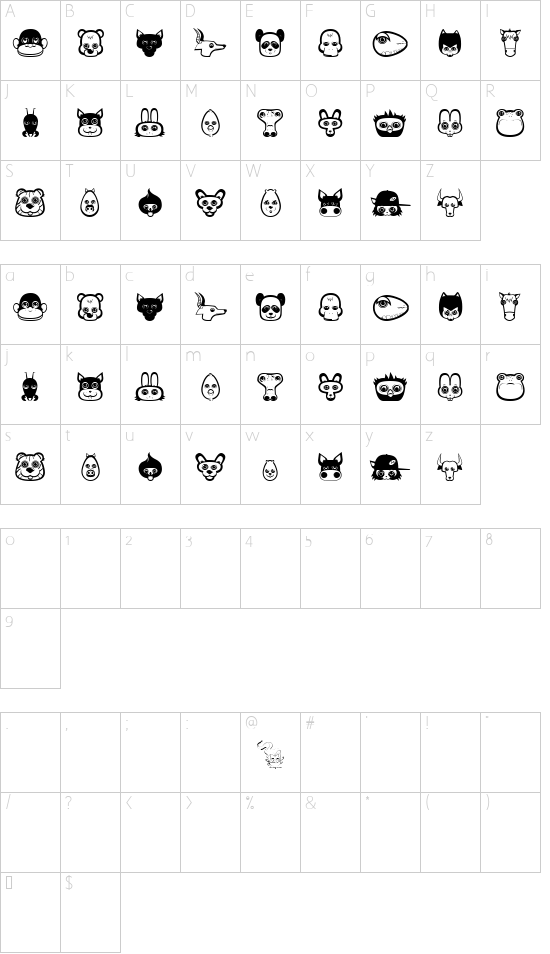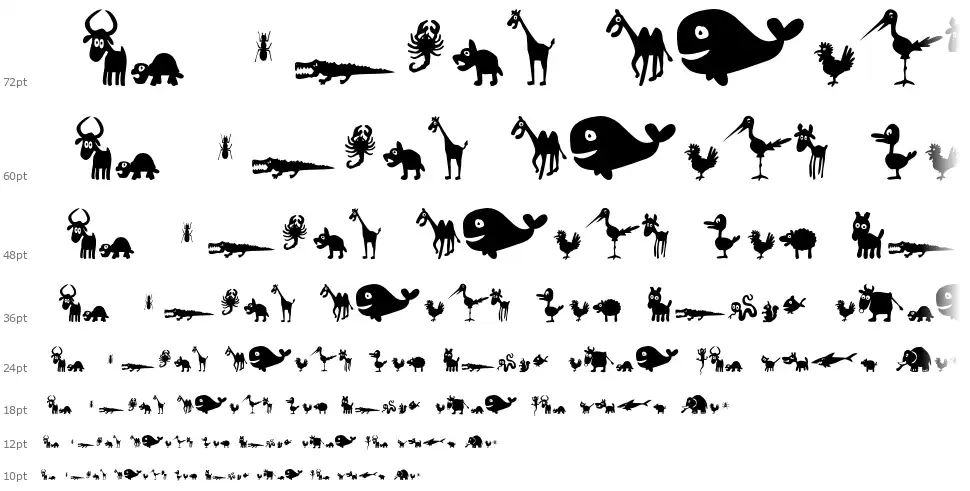
Web the win pets 2 font contains 30 beautifully designed characters. Not free for commercial use. Web win pets 2 font is a dingbats, animals font designed by font environment. Web the win pets 2 font contains 30 beautifully designed characters.